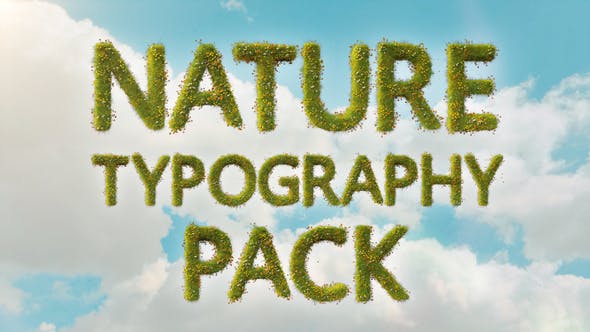
Free Videohive 46524814 Nature Typeface: A Symphony of Nature in Video
Product Highlights: Dive into the Nature Typeface Experience
Unlock your creative potential with this After Effects template, boasting a 52-character alphabet adorned with Nature-themed letters, numbers, and symbols. Each character is intricately designed with elements like grass and flowers, rendered with a mesmerizing 3D simulation. Use this template to infuse captivating text animations into your videos. The package includes a comprehensive video tutorial, making it accessible for both beginners and seasoned editors. Download now and witness the seamless integration of nature-inspired aesthetics into your video editing endeavors.